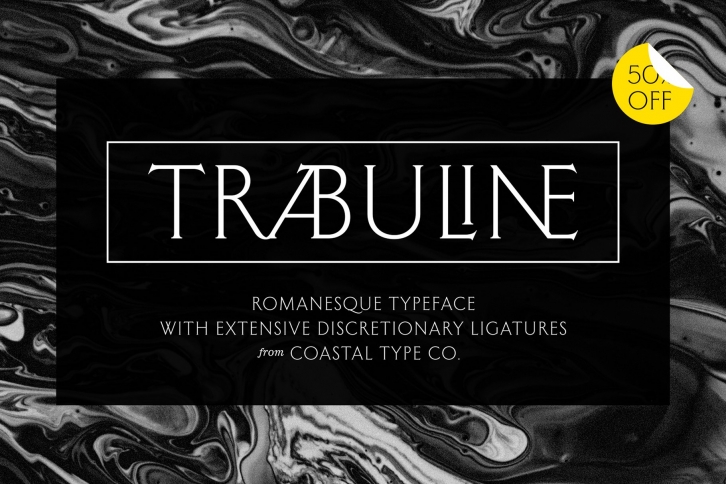
COASTAL TRABULINE is a modern romanesque display typeface, inspired by the beauty and eccentric detailing of British stone carved lettering. Offered in webfont file and opentype file format. The discretionary ligatures also offer a huge range of variation, just activate Discretionary Ligatures and watch your type shape-shift on the fly to create interesting and appealing typography.
- All caps
- Stylistic Alternates & Discretionary Ligatures
- Numerals & Punctuation
- Accented characters
- Multiple Languages Supported